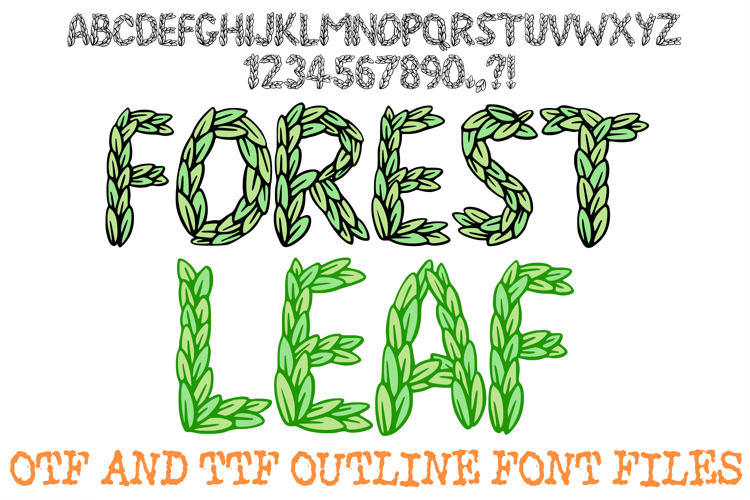
Forest Leaf Alphabet Lettering Font Leaves ABC OTF
Bring a fresh, organic energy to your typography with this beautifully detailed display font. Every uppercase letter, number, and punctuation mark is intricately woven from dense clusters of hand-drawn forest leaves. The design features clean black line art outlining individual foliage elements, blending a structured display layout with a playful, cartoon-inspired botanical aesthetic.